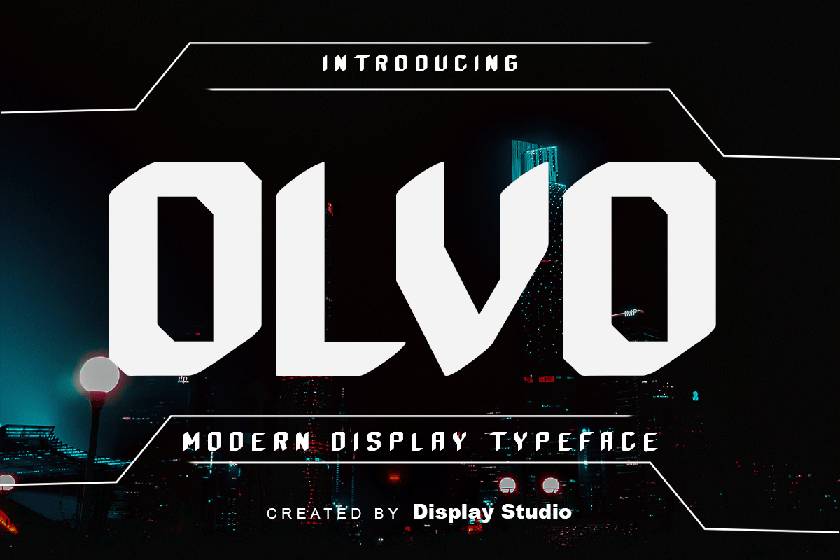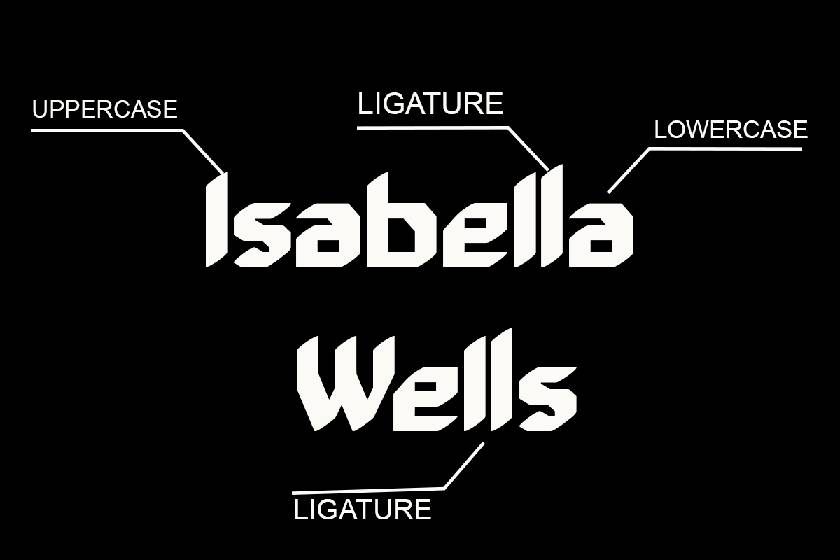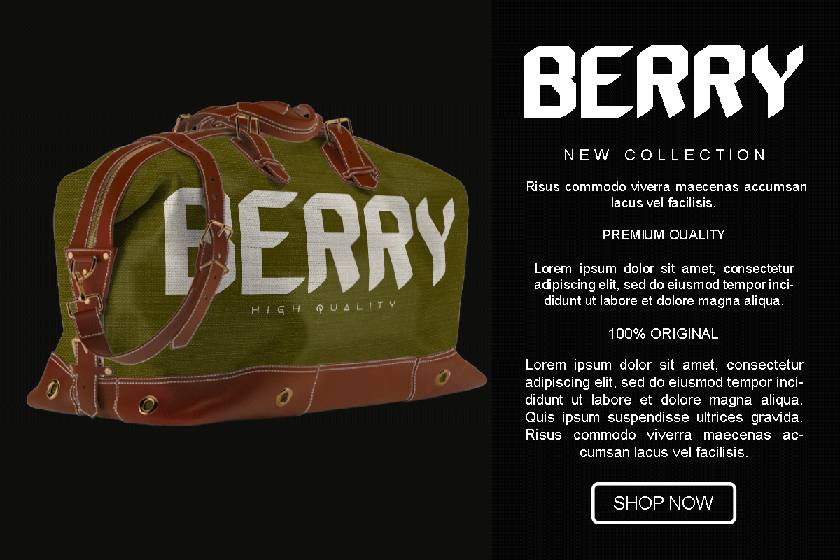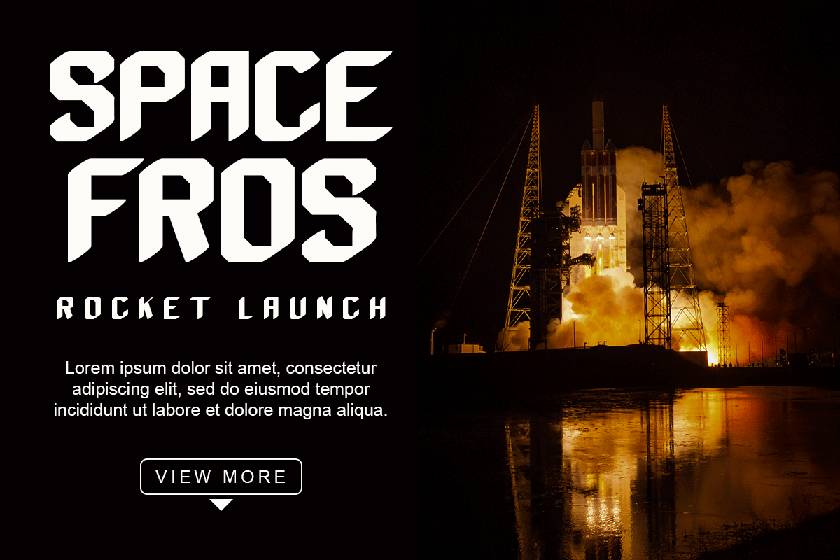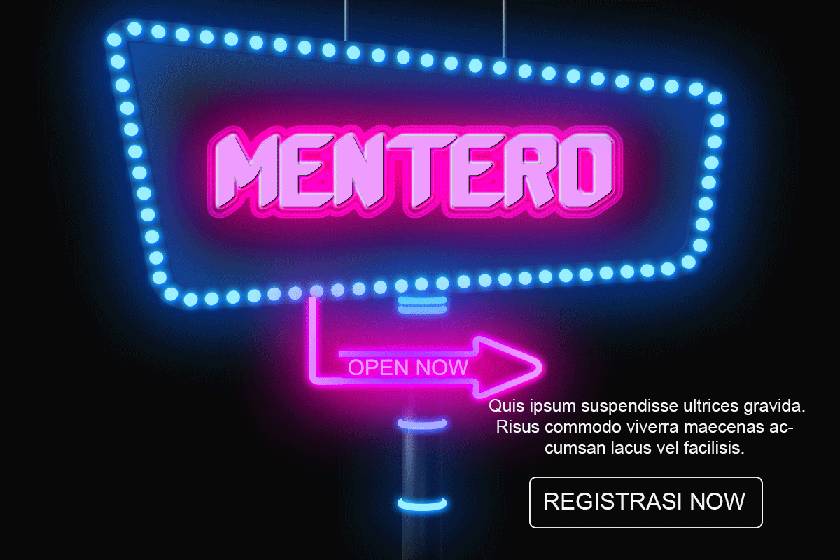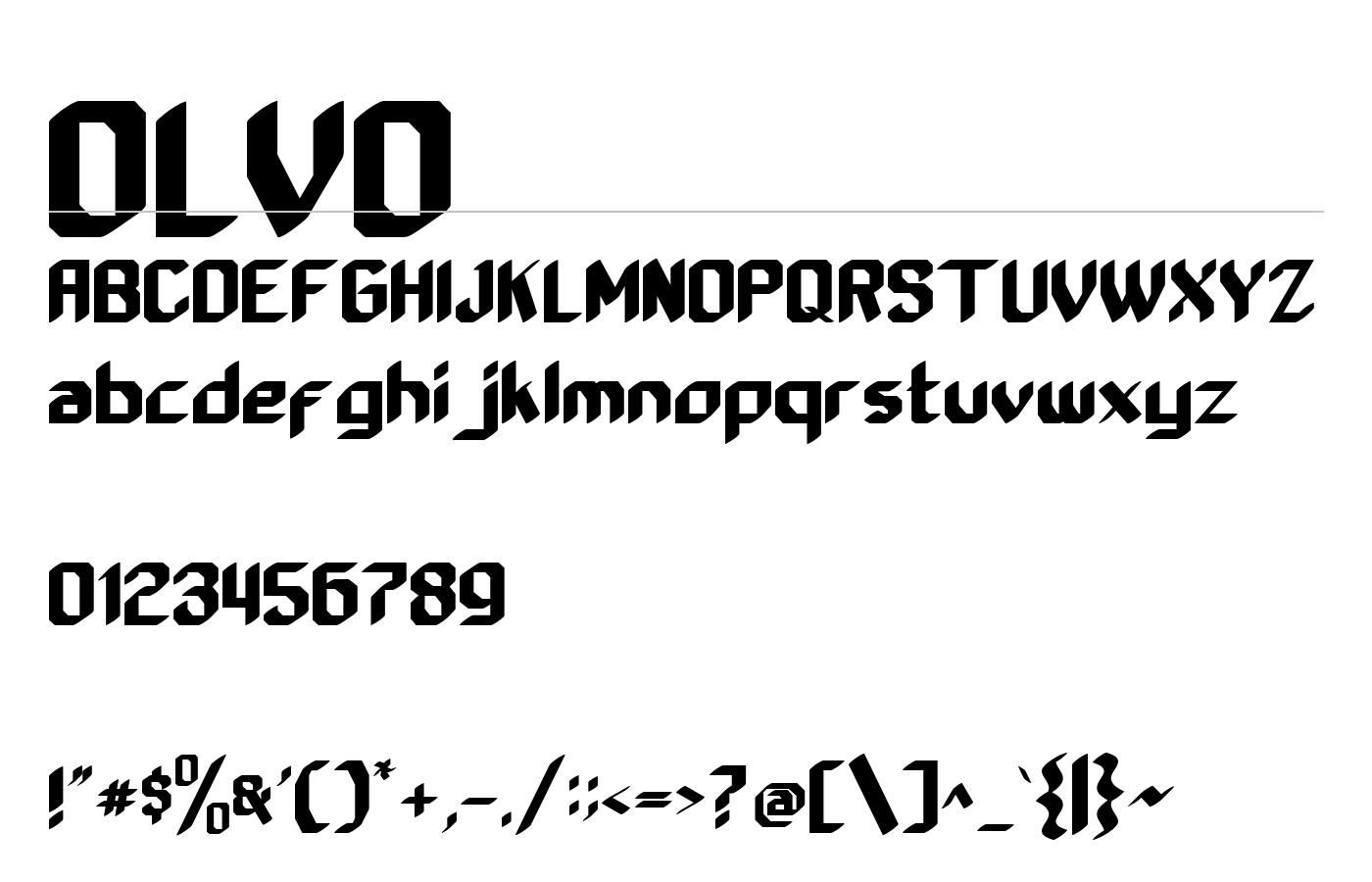
Olvo is a bold, angular sans serif font with a futuristic and geometric feel, featuring strong, sharp edges and a condensed width that gives it a powerful presence. Its unique letterforms, such as the distinctive "Q" tail and dynamic lowercase shapes, make it ideal for striking headlines, logos, and branding that seek a modern, edgy look. This font works well in creative projects and tech-forward designs where a bold, attention-grabbing style is needed.
Olvo Font
About Olvo Font
| Font family | Olvo Font |